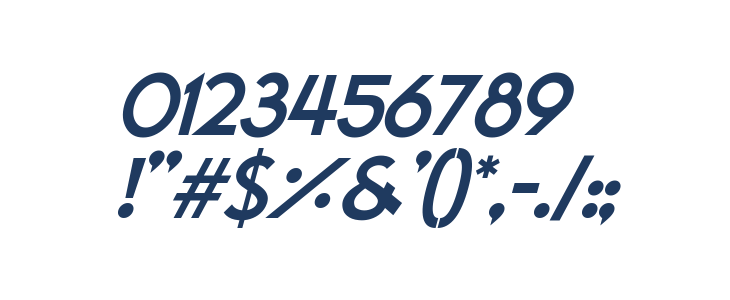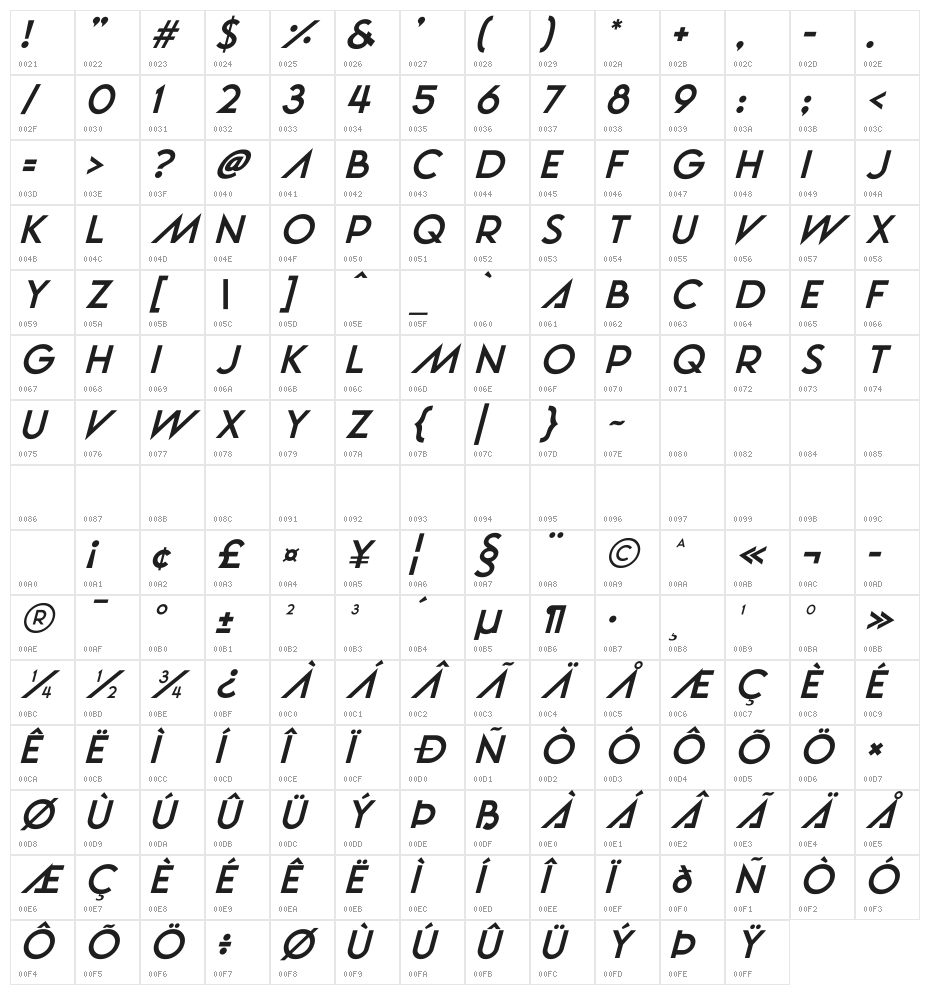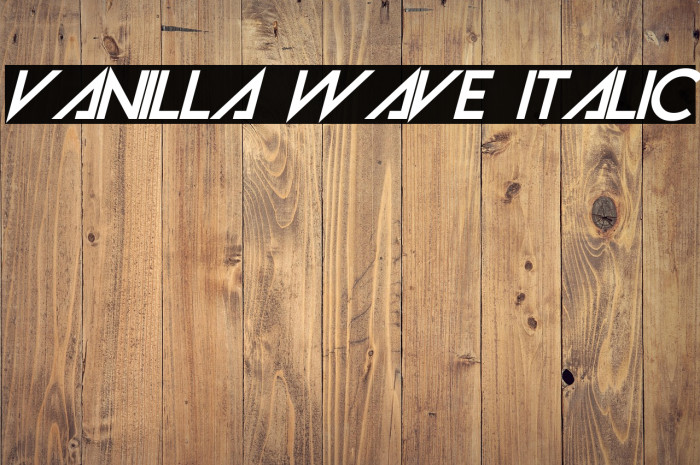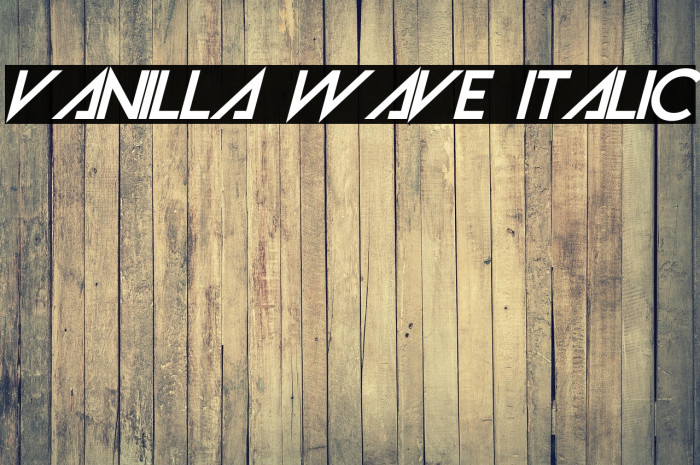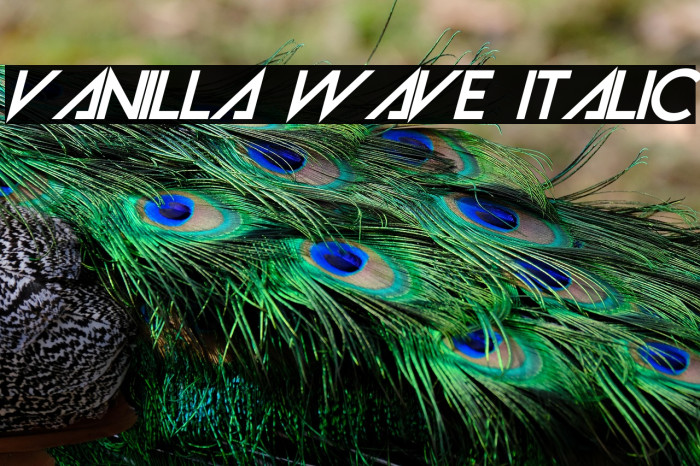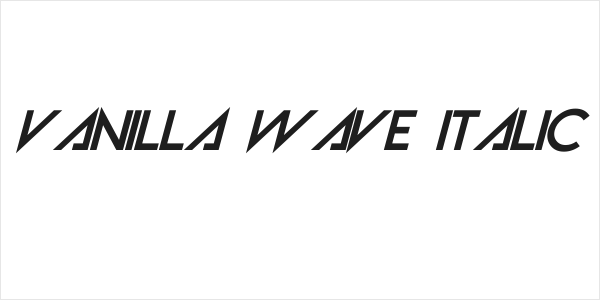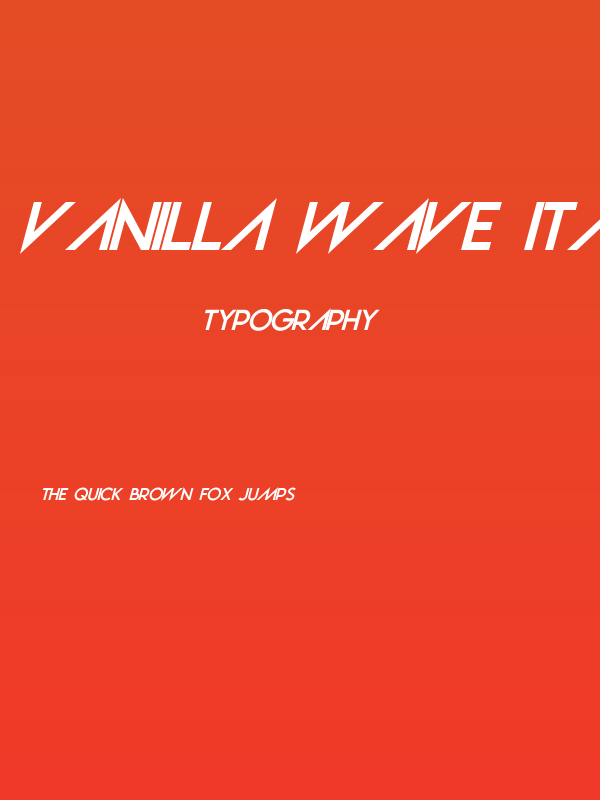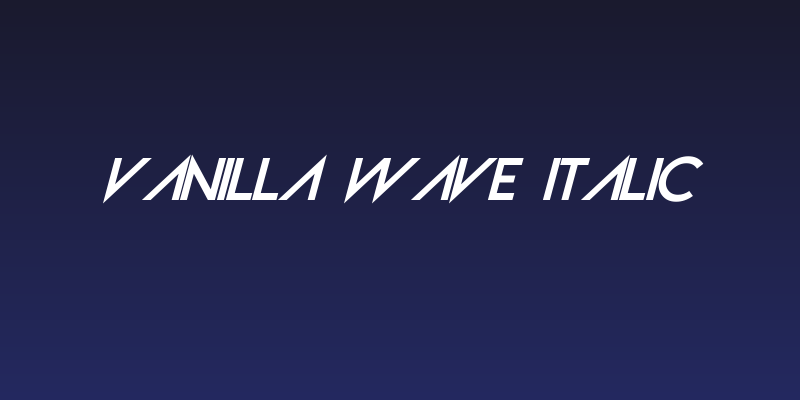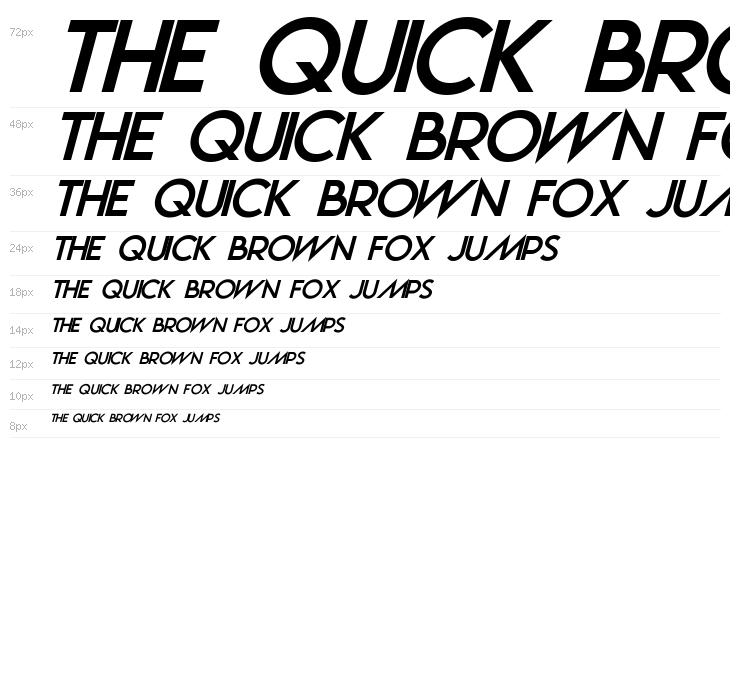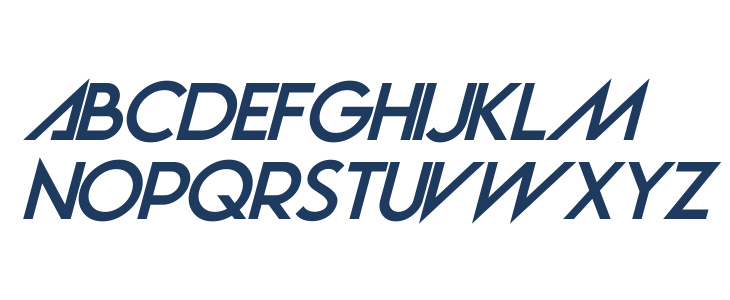
Vanilla Wave Italic Font
Vanilla Wave Italic Description
This font exudes a dynamic and modern flair with its italicized, forward-leaning characters. The strokes are bold and consistent, offering a sense of movement and energy. Each letter is crafted with precision, featuring sharp angles and smooth curves that create a sleek, aerodynamic appearance. The numbers and special characters maintain this cohesive style, ensuring versatility across various applications. The font's boldness and slant make it particularly eye-catching, ideal for projects that require a contemporary and assertive look.
| Proposed Projects | Ideal for branding, advertising, sports-related designs, and modern editorial layouts. |